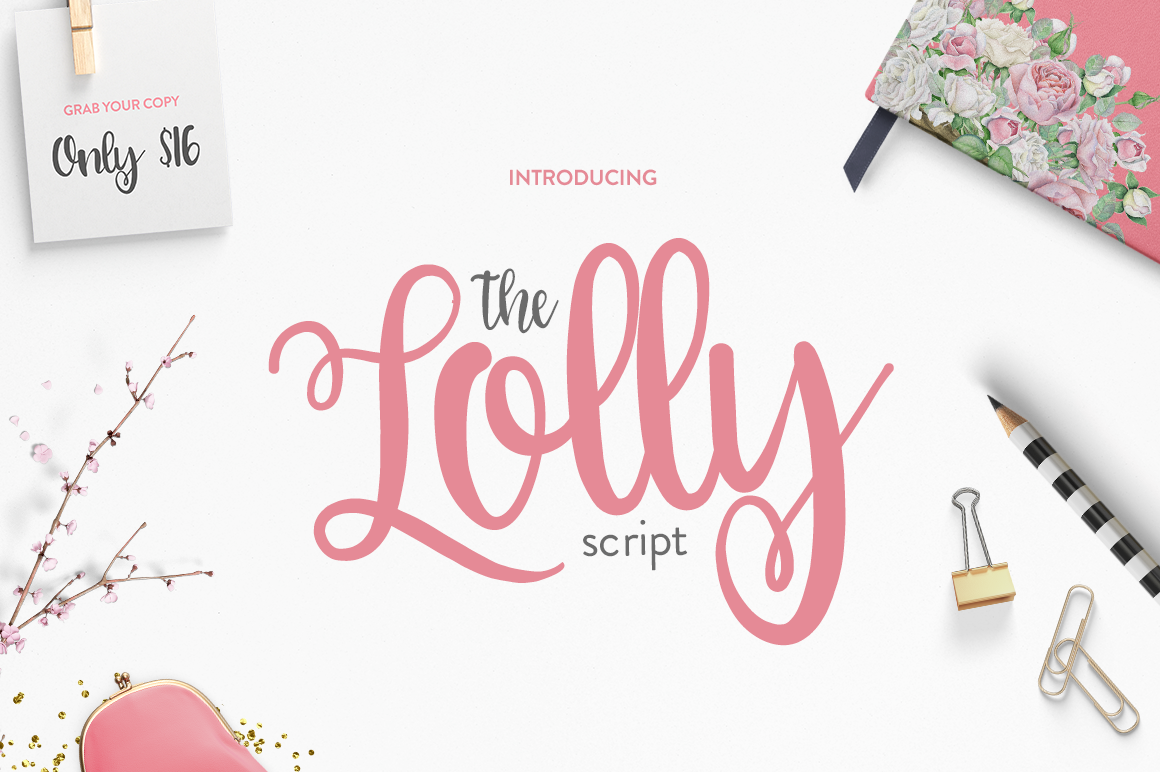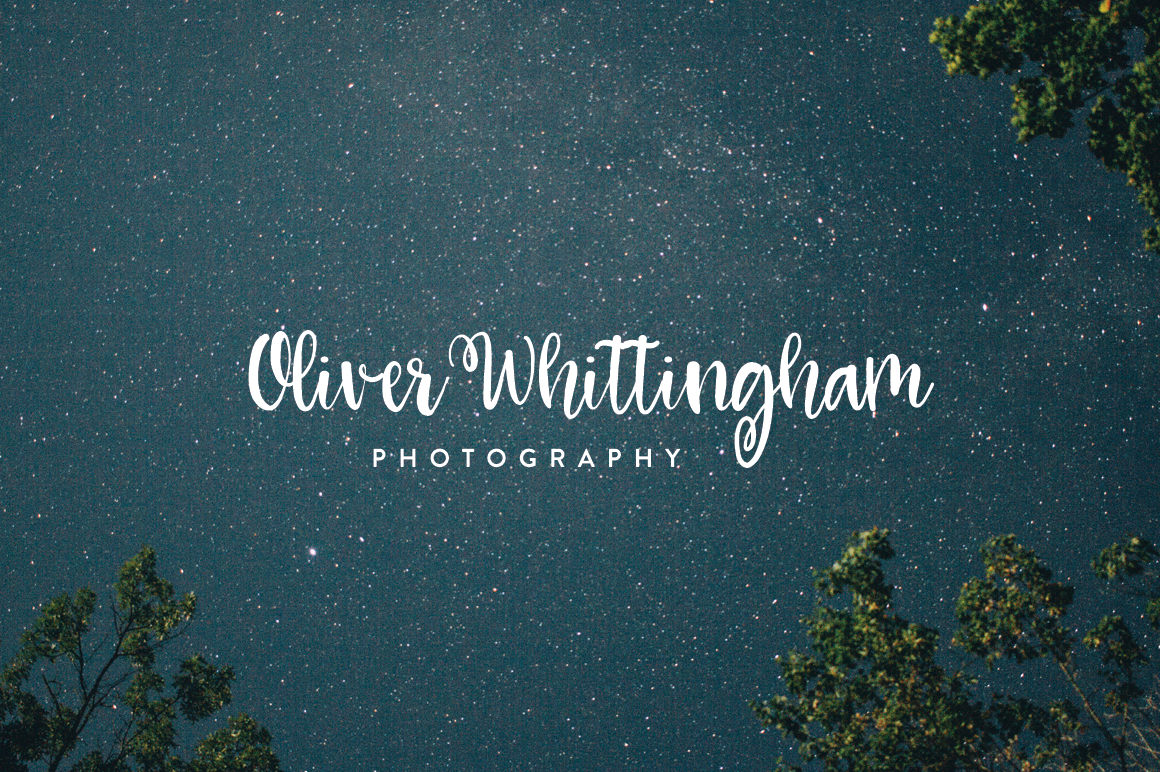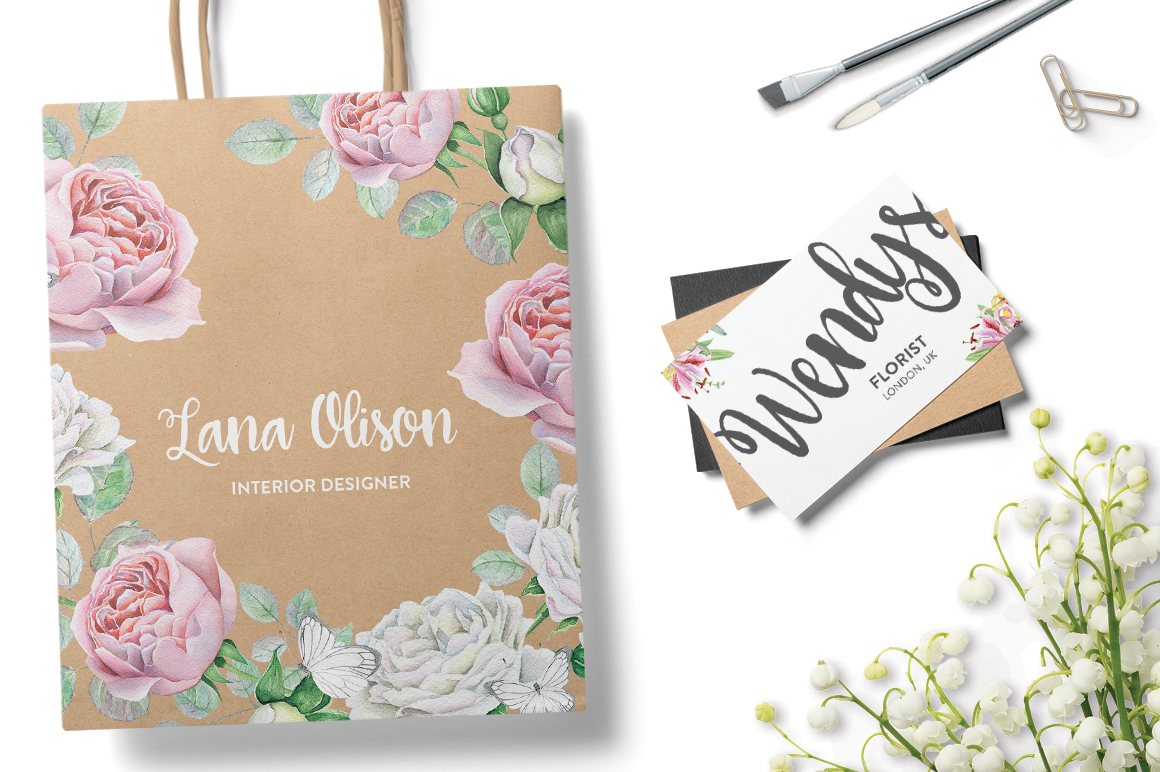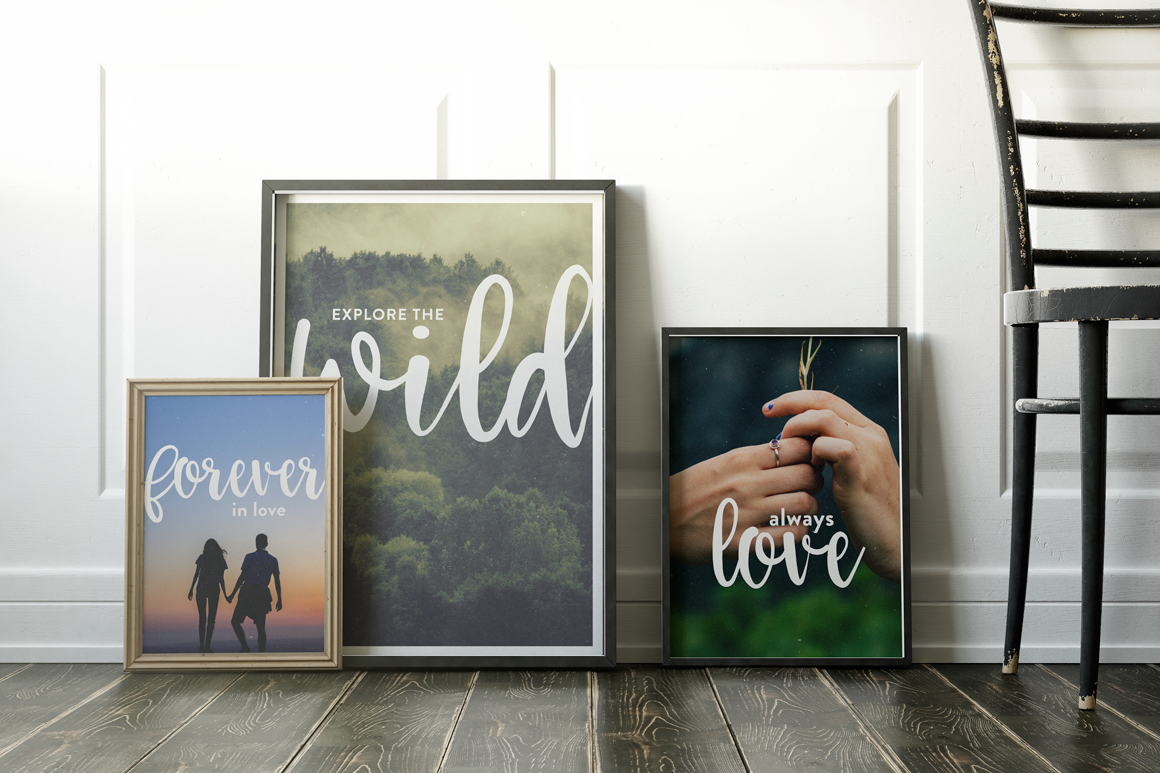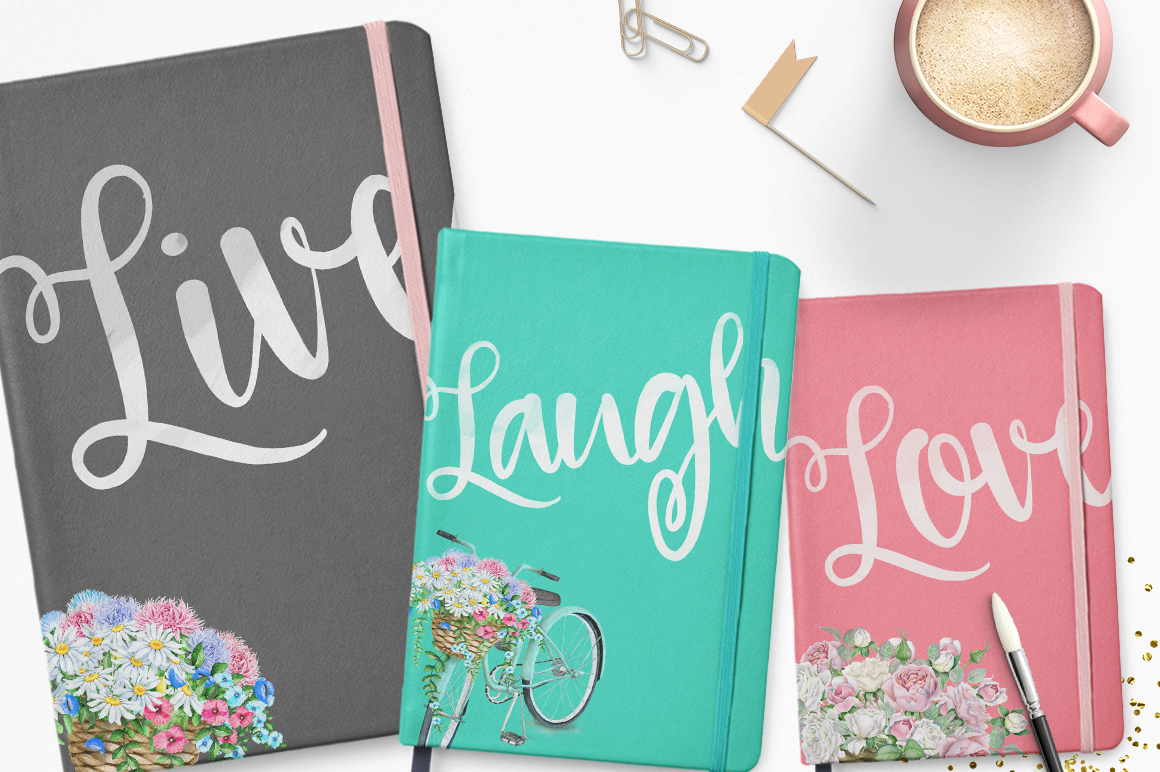
The Lolly Font
About The Lolly Font
The Lolly Script is a thick script based font.
Packed with 100 stunning unique glyphs, this font is a must-have in your design toolkit.